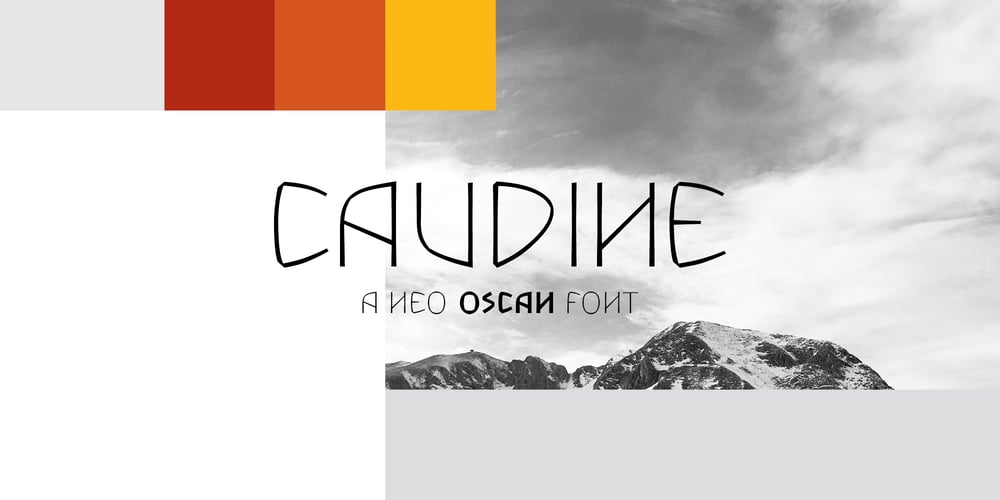
Caudine Font Family was designed by Leo Colalillo and published by Leo Colalillo. Caudine contains 3 styles and family package options. Caudine is a font inspired by the Oscan alphabet and script, the one used by the Samnites, an ancient Italic people who lived in Sannio in central-southern Italy. It is a font suitable for titles and works inspired by the pre-Roman era. The Oscan alphabet was developed during the 2nd millennium BC, a period during which populations from the Black Sea and the Caucasus penetrated Italy and who most likely gave rise to the Italics from which the Osco-Umbrians then derived.